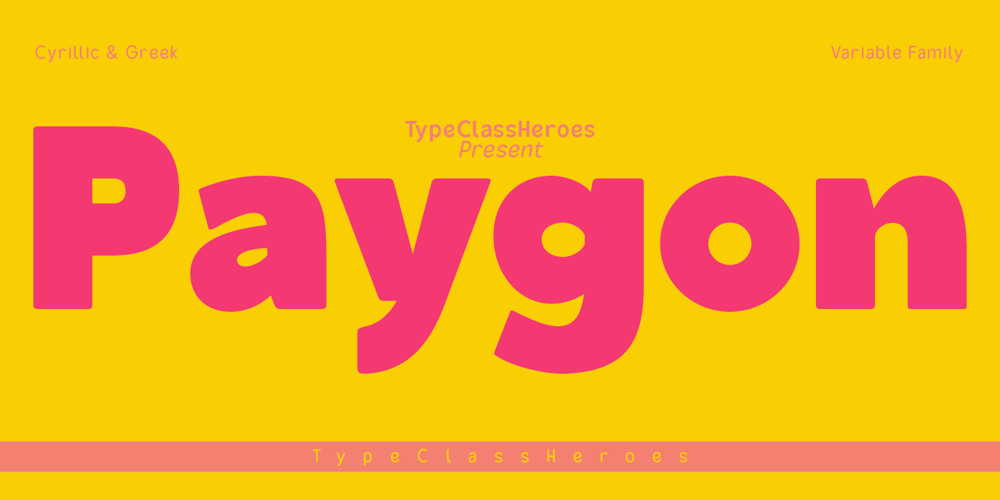
Paygon
Paygon font
Paygon Font Family was designed by Suandana ipandemade and published by TypeClassHeroes. Paygon contains 9 styles and family package options. Paygon is a sans serif family. Design with various width and weight that you can explore and combine creating rhythm and texture for comfortable reading. This font supports more than 100 Latin-based languages and has extensive Cyrillic and Greek support for languages like Russian, Bulgarian, Ukrainian, and many more. In variable version, it allows multiple options when designing, adapting to different composition solutions.Feature Uppercase & Lowercase Number & Symbol International Glyphs (Cyrillic & Greek) Multilingual support Ligature Feel free to drop us a message any time and follow my shop for upcoming updates.Hope you enjoy it.